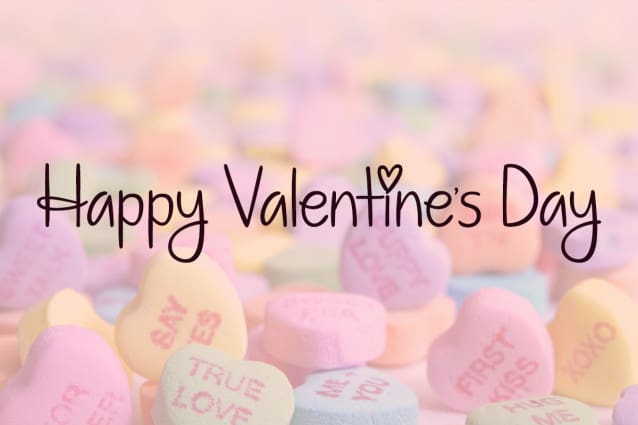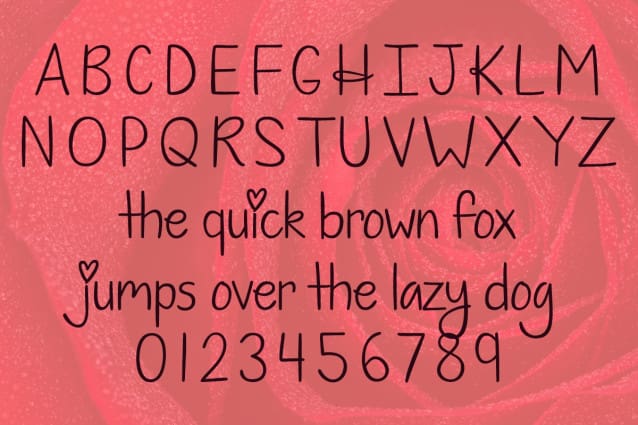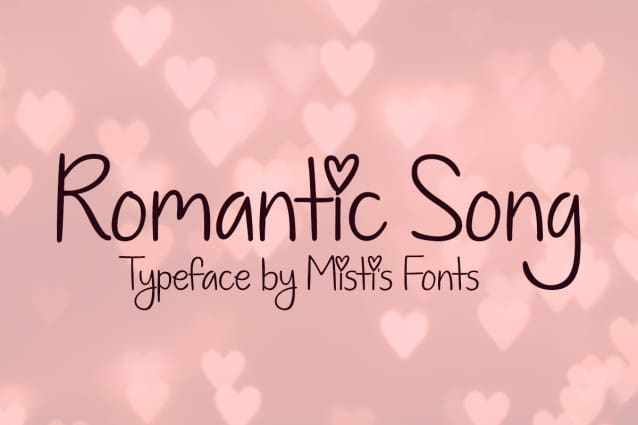
Romantic Song Font
Romantic Song Font is a charming handwritten font full of love and warmth! With its playful strokes and sweet curves, it’s perfect for Valentine’s Day cards, love notes, and heartfelt designs. Add a touch of romance to your projects with this adorable, love-filled font!